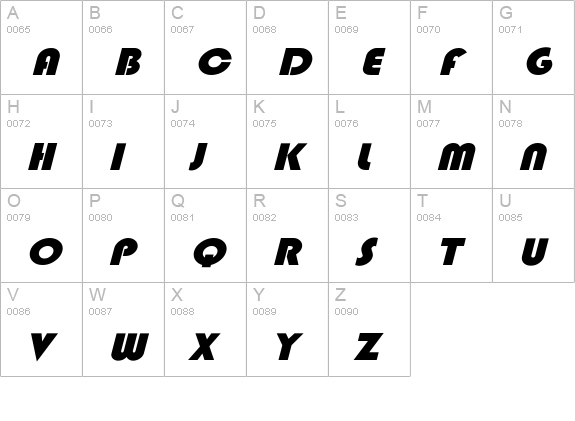
BlippoExtObl-Heavy Font Details
BlippoExtObl-Heavy is a heavy, high-impact variant in the BlippoExtObl typeface family \xE2\x80\x94 well suited to high-impact headlines, posters, and display advertising.
BlippoExtObl-Heavy font is a bold and eye-catching typeface that demands attention with its heavy weight and unique oblique design. Perfect for making a statement in headlines, titles, and logos, this font exudes a sense of strength and modernity. The best part? BlippoExtObl-Heavy font is available for free download at FontsMarket.com, allowing you to add a touch of boldness to your projects without breaking the bank. Whether you're looking to create impactful designs for print or digital media, this font offers versatility and style that will make your content stand out. Download BlippoExtObl-Heavy today and unleash your creativity with this powerful typeface.